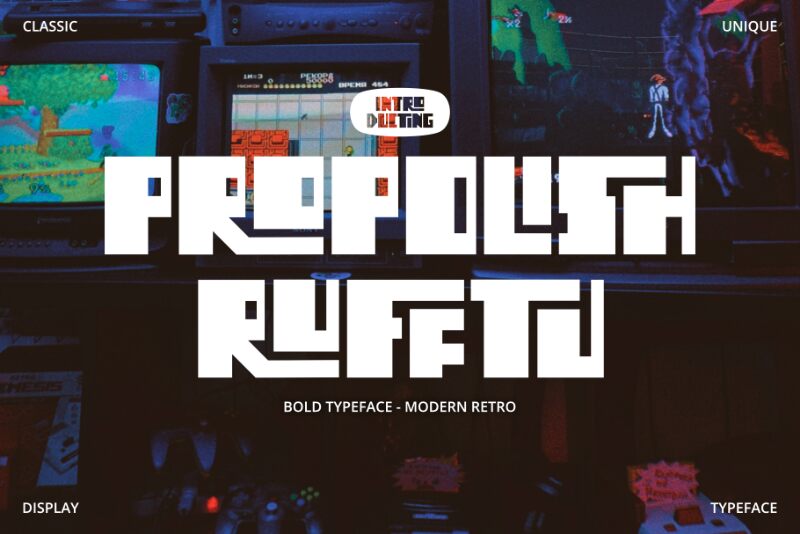
Propolish Rufftu font by Eka Rifqi Setiawan is a free font with an assertive feel. The font is characterized by its geometric structure, blocky appearance and angular corners that create interesting shapes. It is also futuristic but has a nostalgic appeal that adds to its uniqueness. Again, its elements that aren’t overly decorated make Propolish Rufftu most useful in modern retro applications.
Propolish Rufftu is an attention-grabbing font and can make huge impacts when used in branding design projects, packaging design, posters design, and magazine covers to mention a few. Use it in logotypes or plain cover letters as well for that outstanding look.
Propolish Rufftu is a captivating display font that exudes rugged charm. With its bold lines and distinctive letterforms, it commands attention and adds character to any design. Ideal for branding, headlines, and posters, Propolish Rufftu delivers a unique and edgy aesthetic to your creative projects, making them stand out effortlessly.